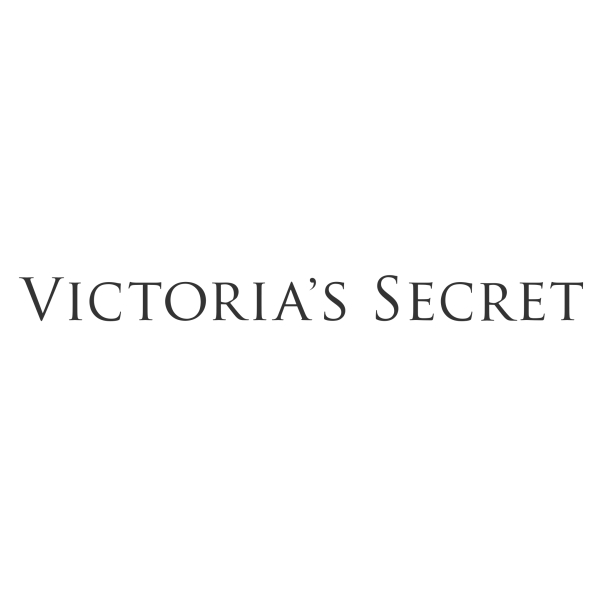
Victoria’s Secret Font
The Victoria's Secret logo lettering is very similar to Trajan. Trajan is a serif typeface designed in 1989 by Carol Twombly for Adobe. You can purchase and download it here.